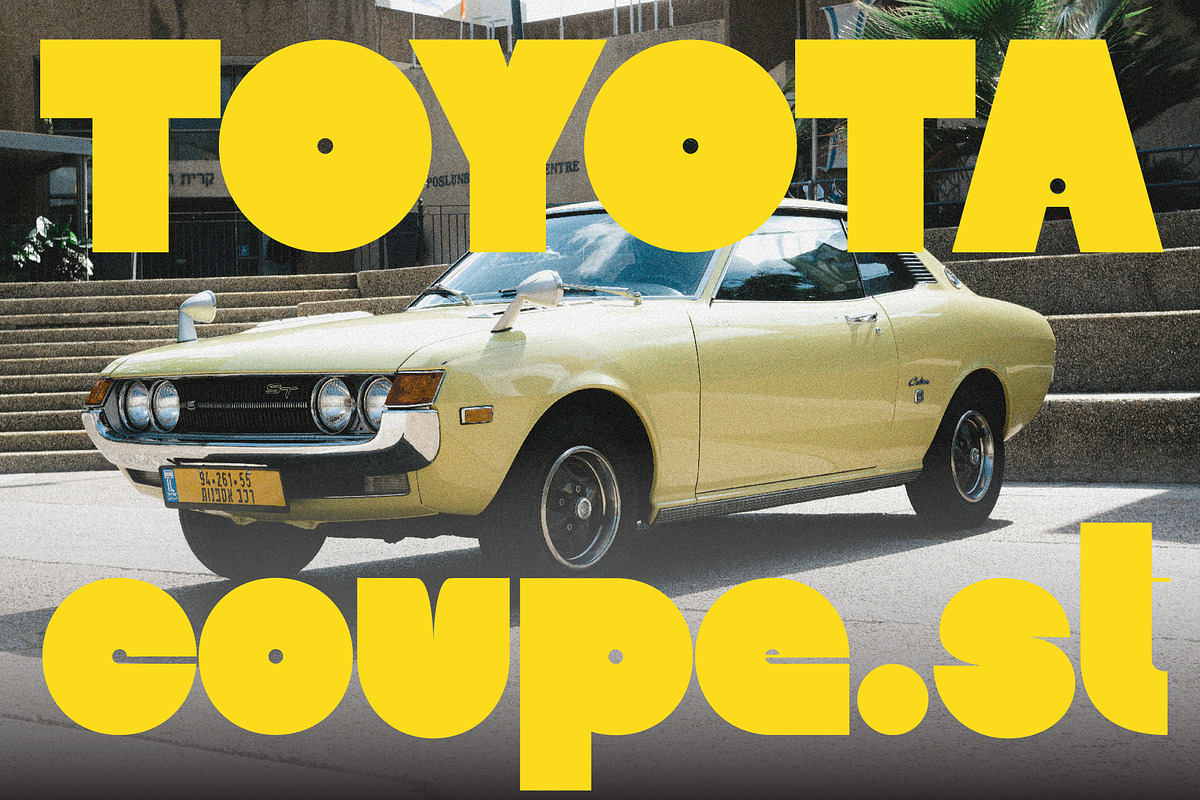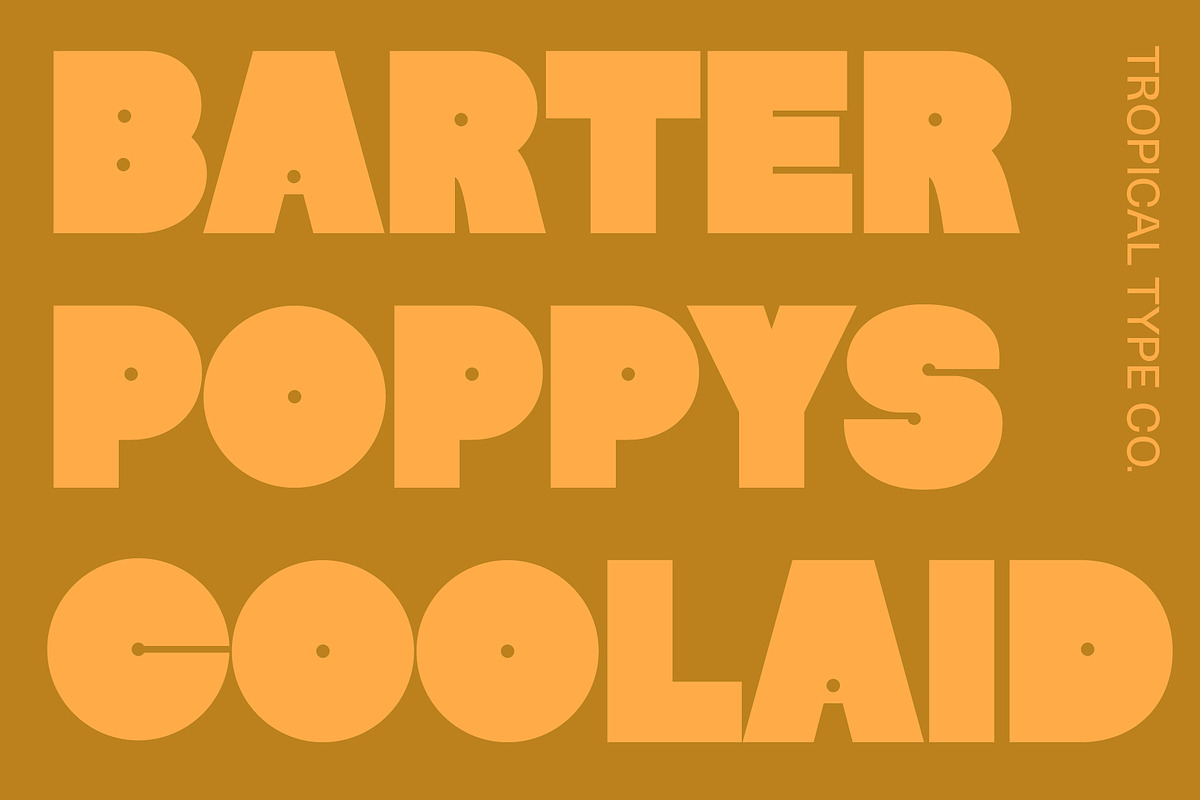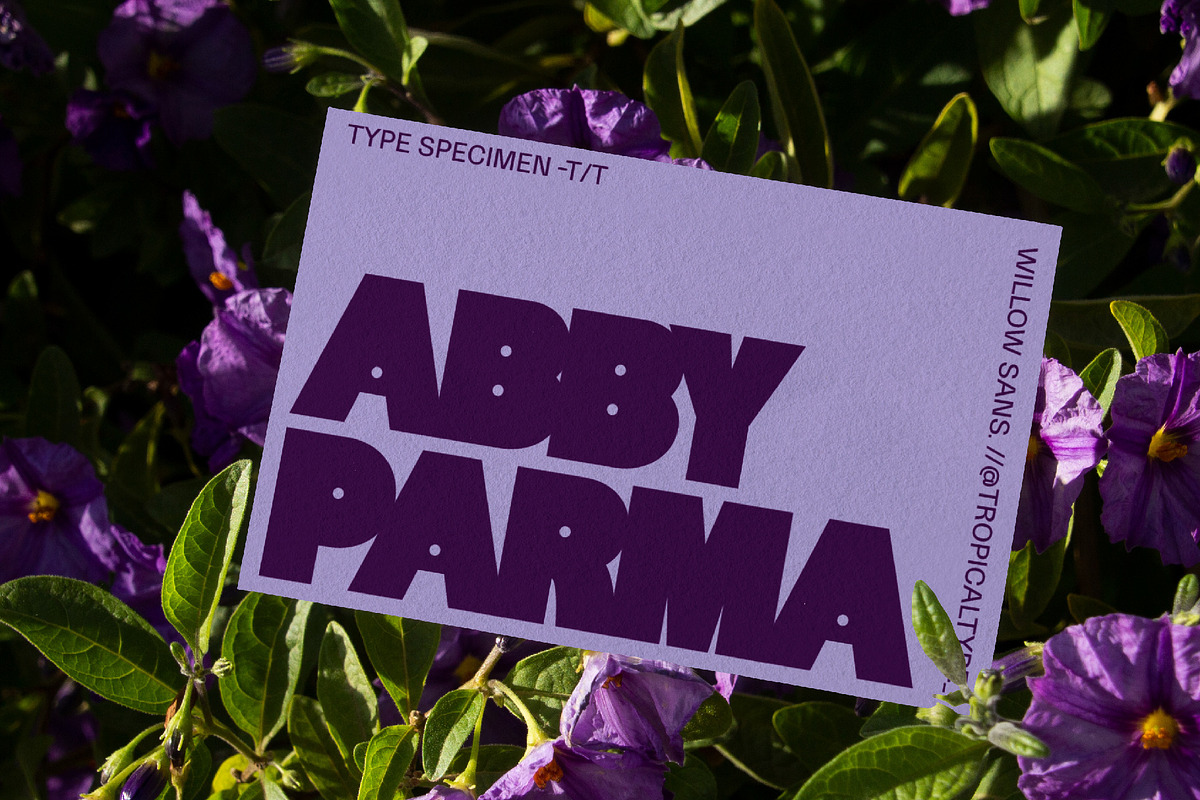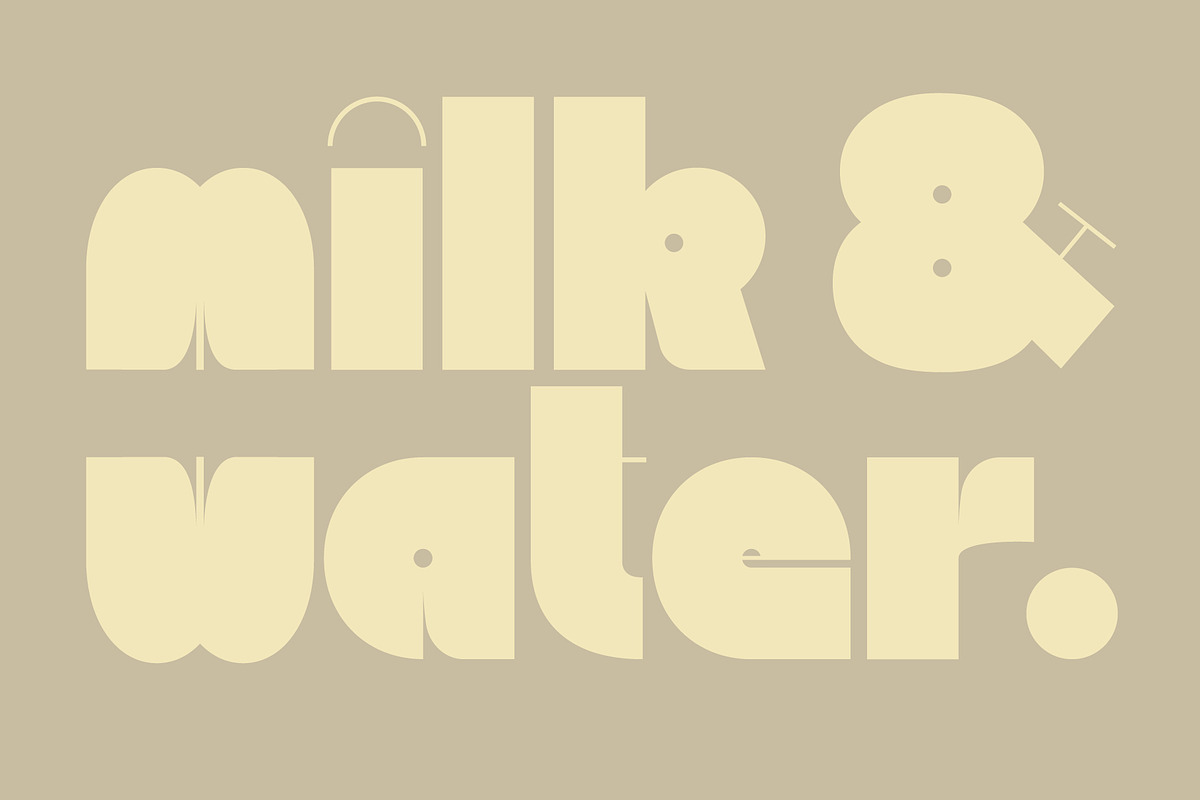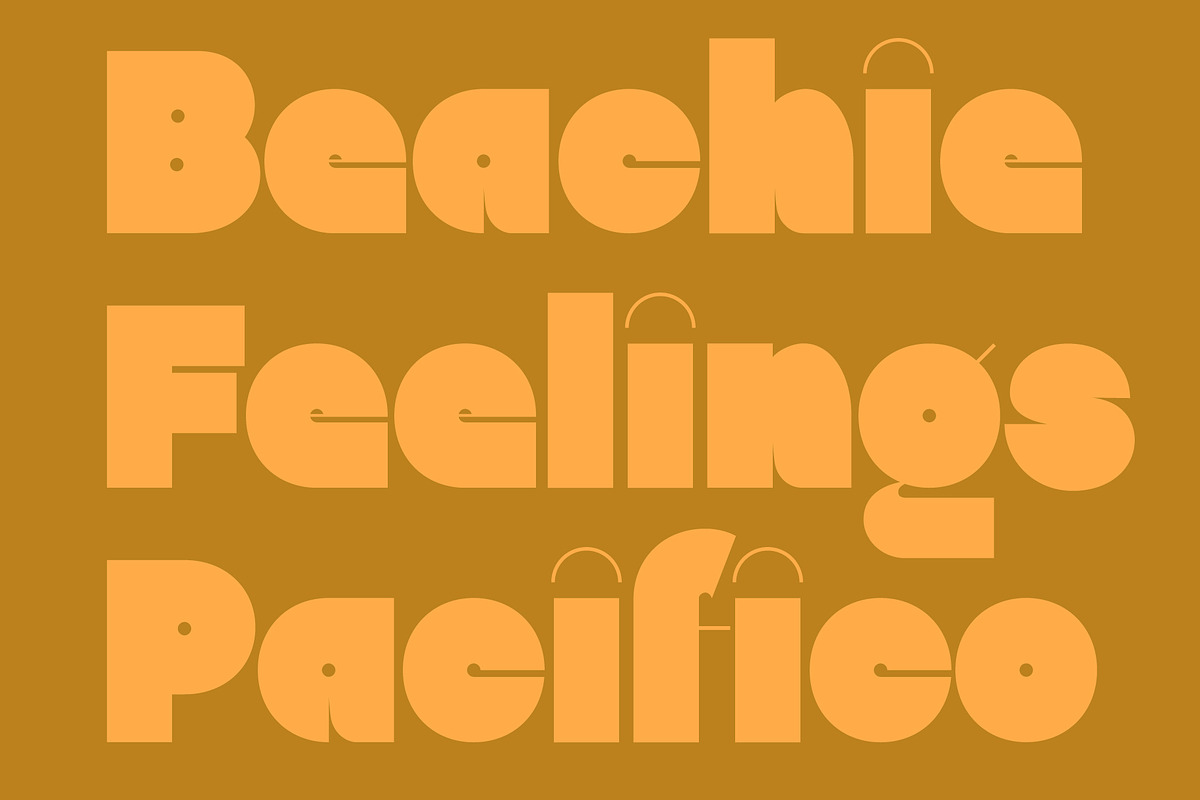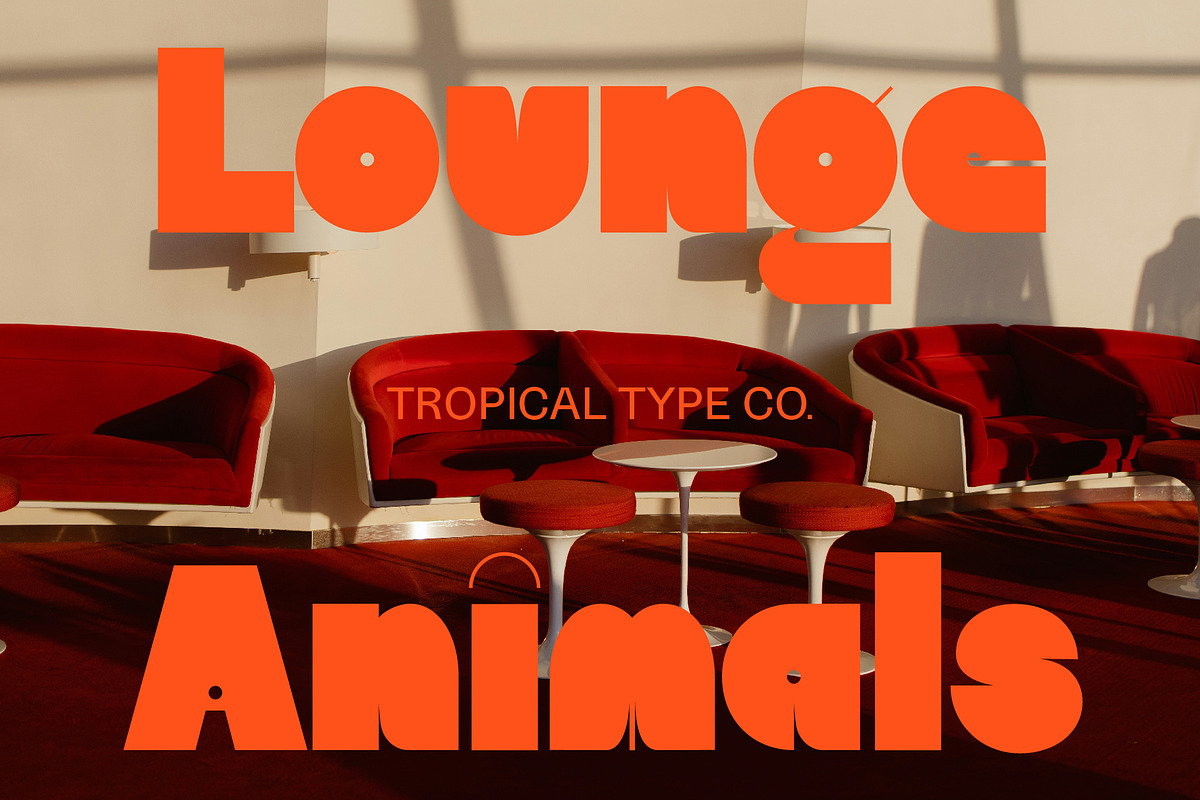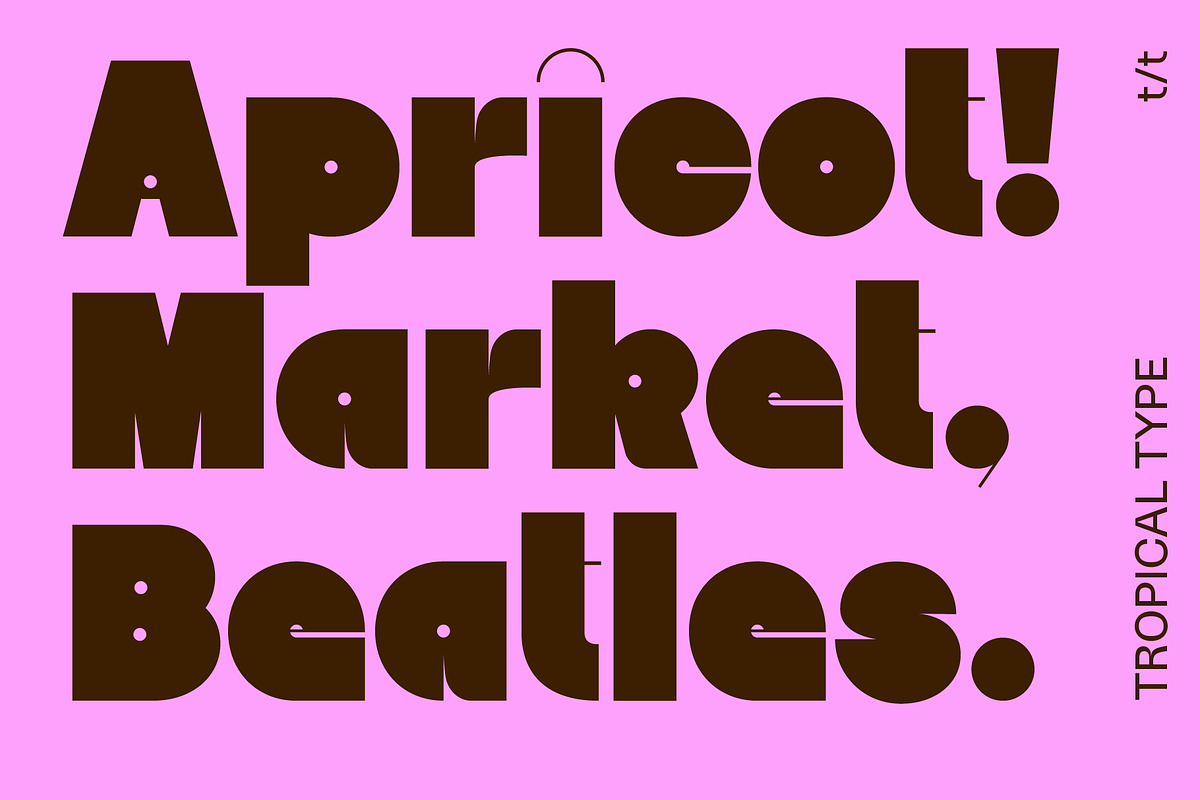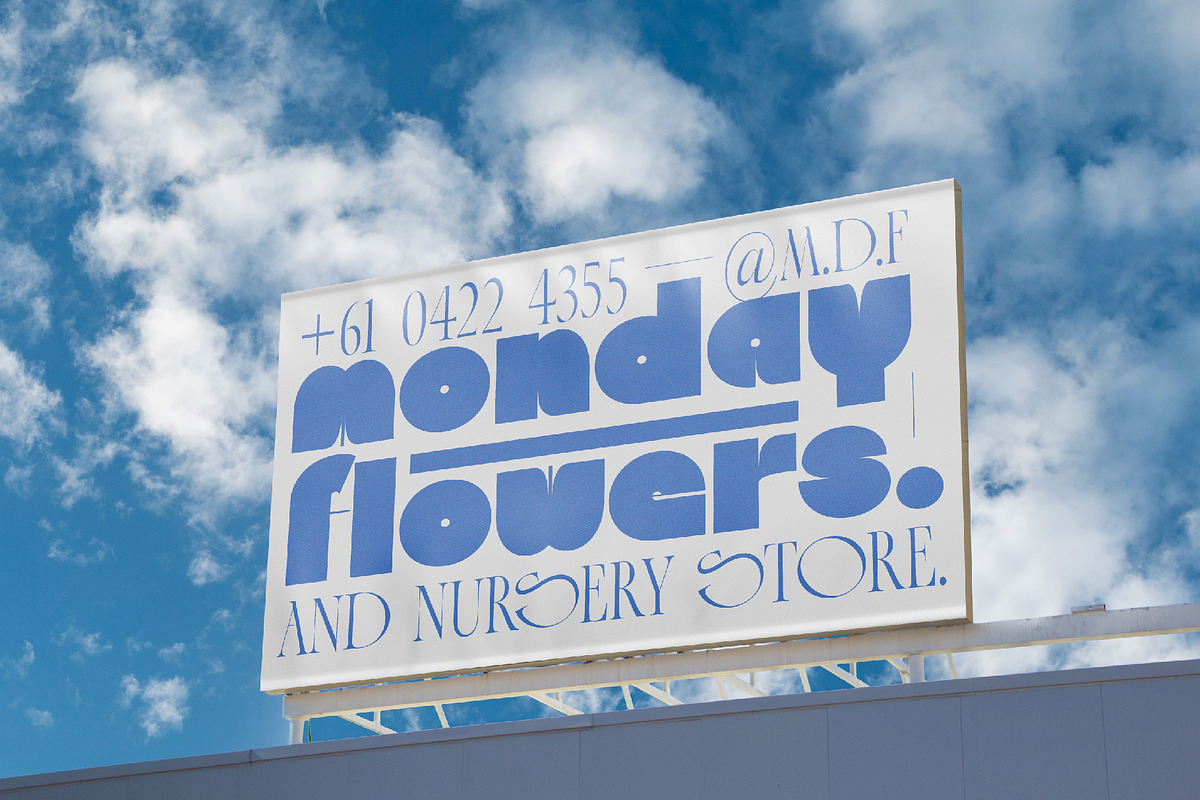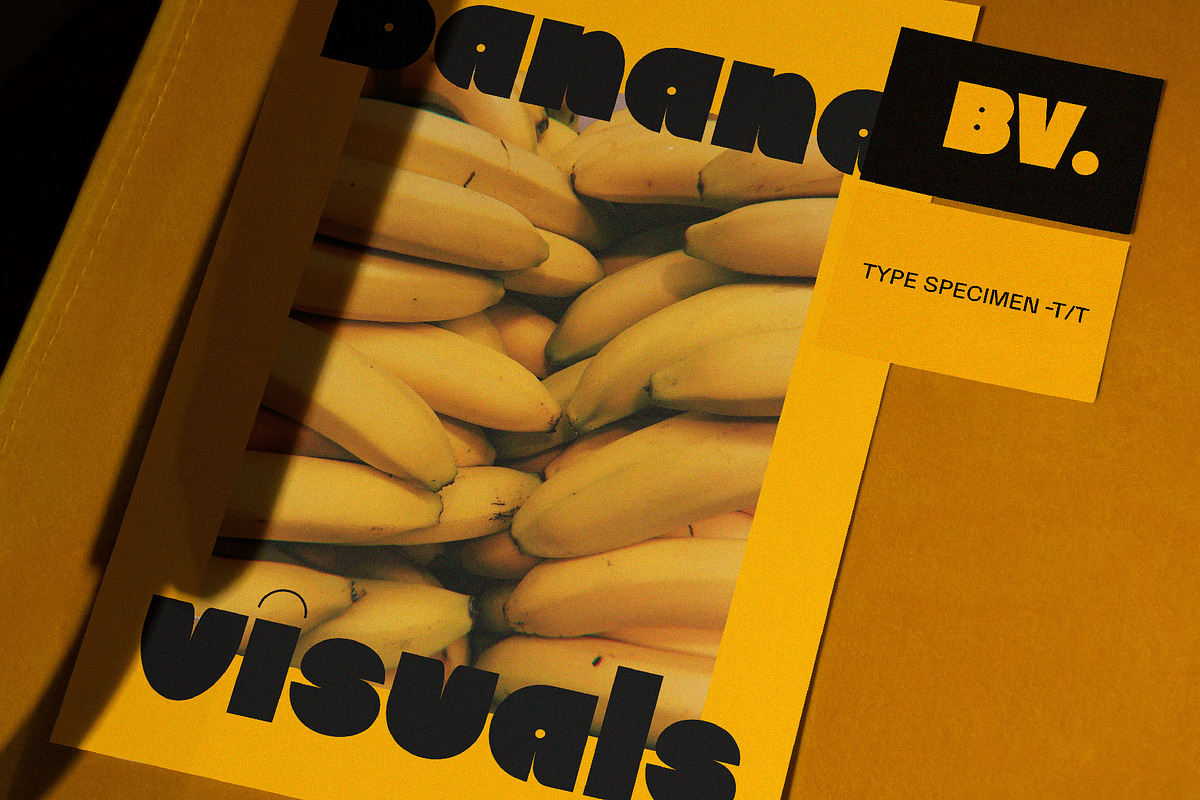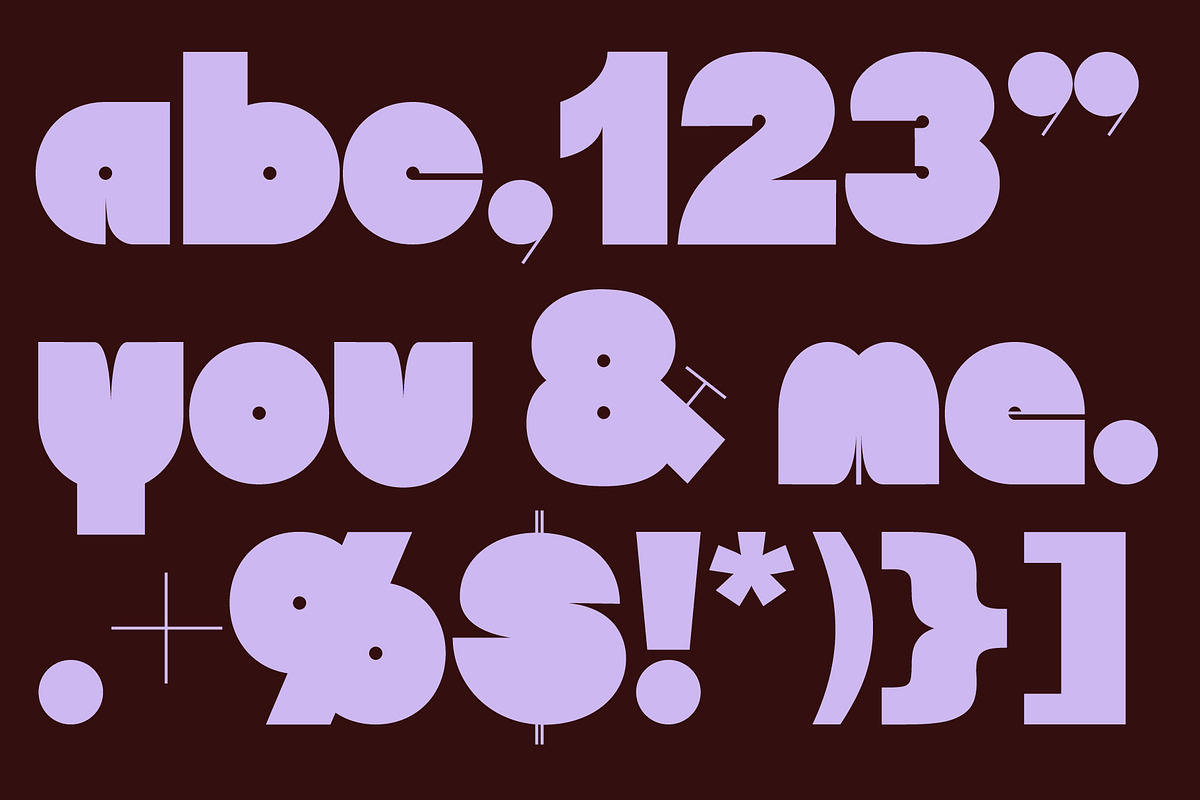
Willow Sans
Willow Sans is a little cute & a little quirky, with just a hint of nostalgia. Geometric seventies vibes mix with more modern experimental outlines creating a bold yet approachable typeface.
-Non English glyphs included:
ą á â à ä å ã æ ć ç ę é ê è ë í î ì ï ı ł ñ ń ó ô ò ö õ ø œ ś š ß ú û ù ü ý ÿ ž ź ż.Ą Á  À Ä Å Ã Æ Ć Ç Ę É Ê È Ë Í Î Ì Ï Ł Ń Ñ Ó Ô Ò Ö Õ Ø Œ Ś Š Ú Û Ù Ü Ý Ÿ Ź Ż